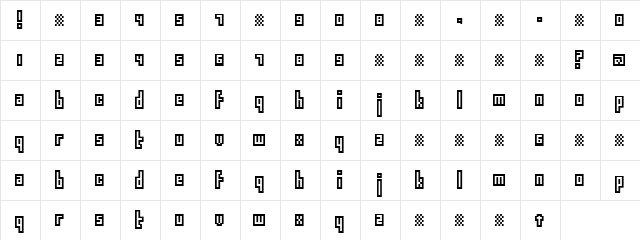
epimodemic Regular Font Preview
epimodemic Regular
epimodemic Regular Font Details
Design Context for epimodemic Typeface
epimodemic is a composed and adaptable typeface that performs quietly and consistently across a wide range of design contexts.